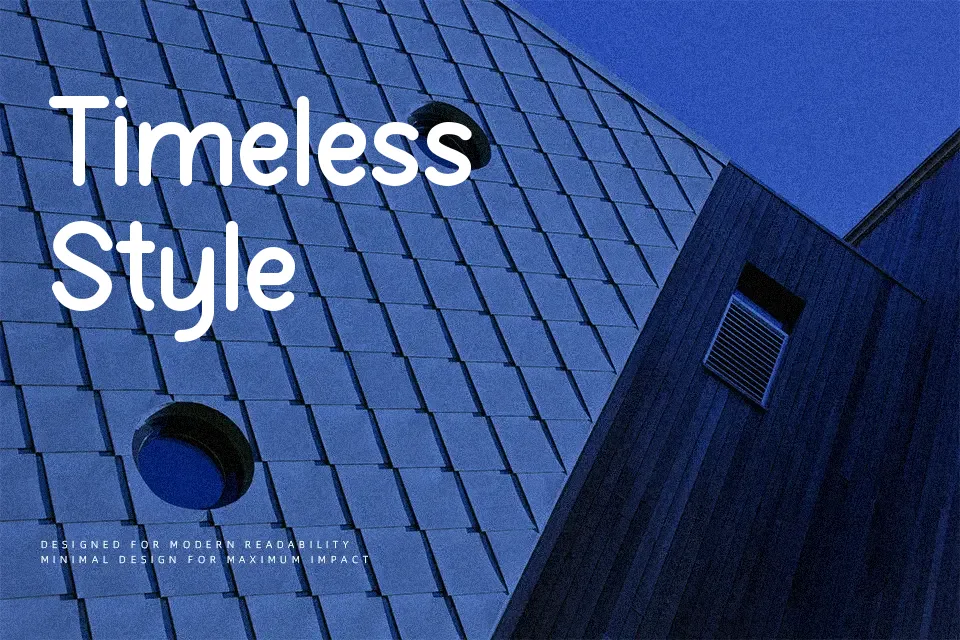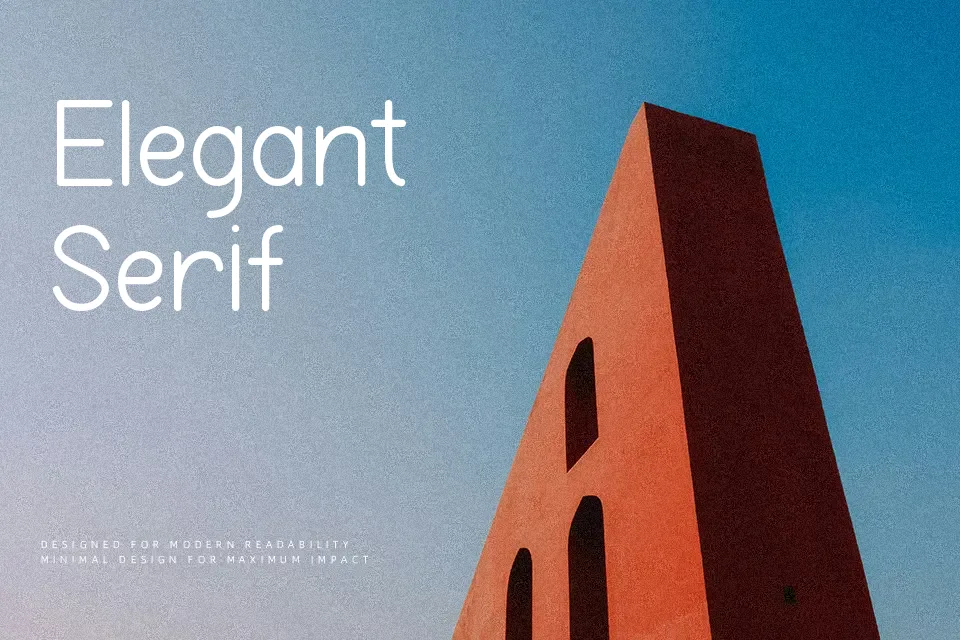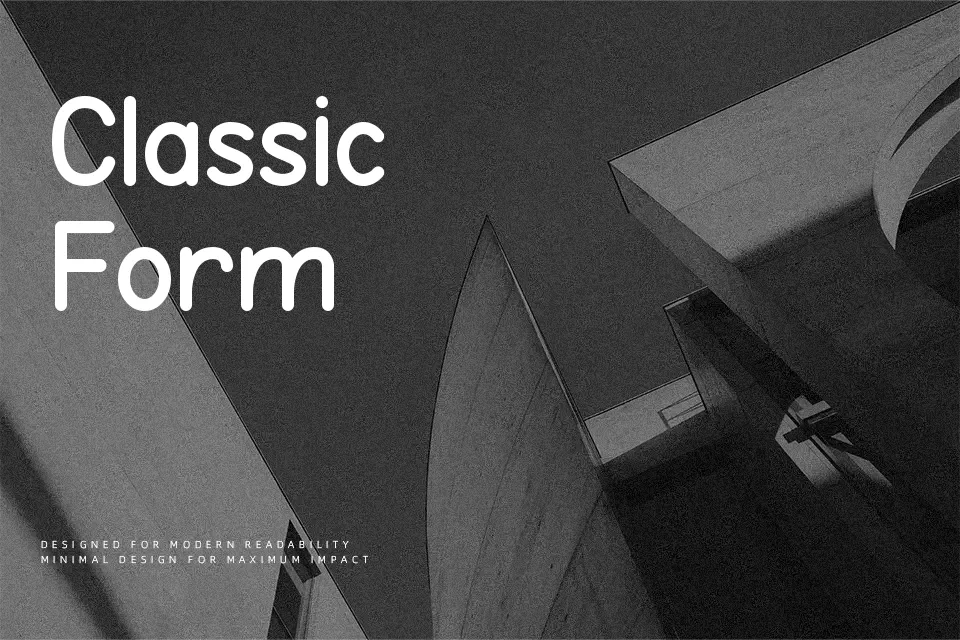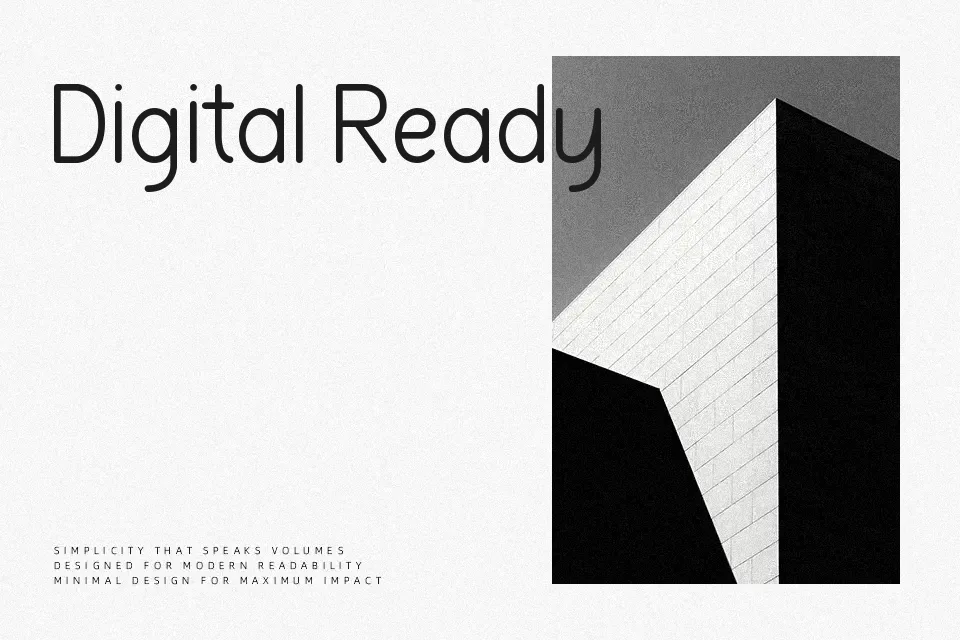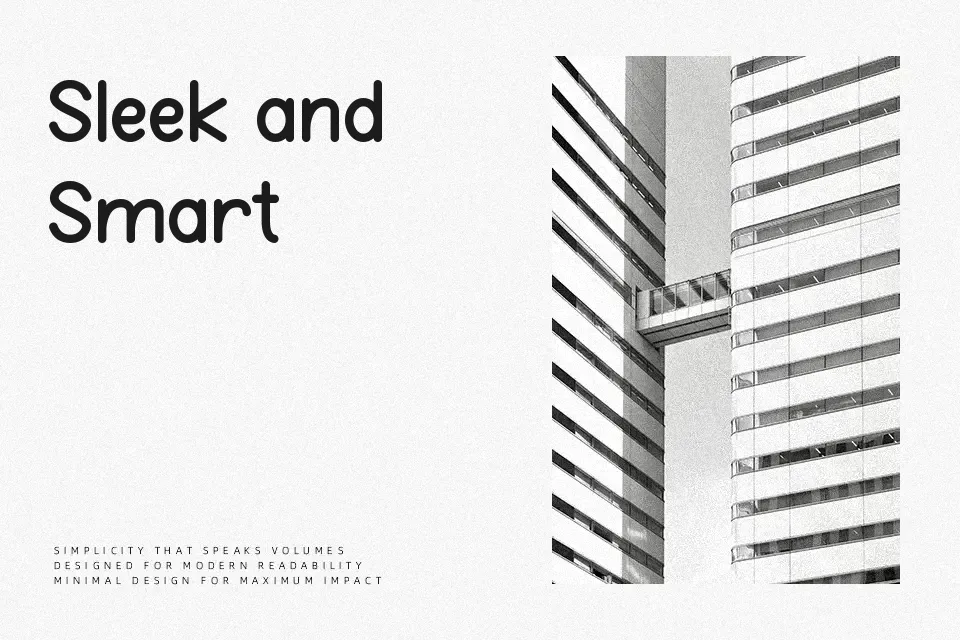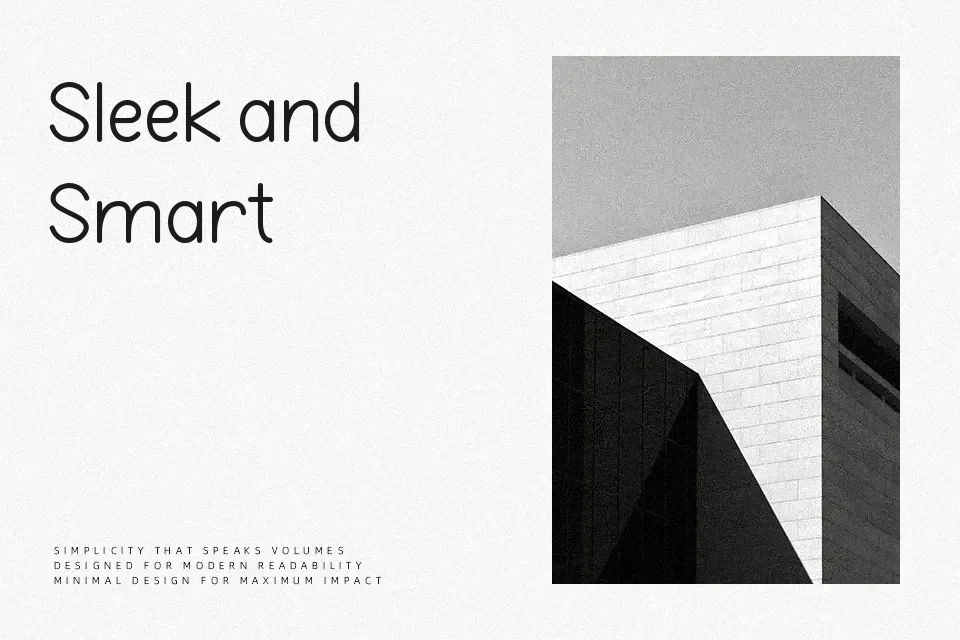
Burd Sans Font
Designed by fontalist
Burd Sans is a soft, rounded sans serif with generous curves, thick weights, and compact spacing that gives text a solid, toy-like presence. Letters sit tightly together, so headlines feel cohesive and punchy rather than airy. The style leans casual and playful, which works nicely for children’s products, informal branding, and eye-catching poster titles where personality matters more than neutrality. It is less convincing in long paragraphs or serious editorial layouts, where the heavy, bouncy shapes can start to feel noisy or unrefined. If you usually reach for clean geometric sans fonts but want something more approachable, this family sits somewhere between a modern logo face and a fun display alphabet.
kids product logos and packaging
playful poster headlines
casual social media graphics
friendly branding for small businesses
long body text or dense paragraphs
formal corporate reports
serious editorial or news layouts
highly minimalist UI design